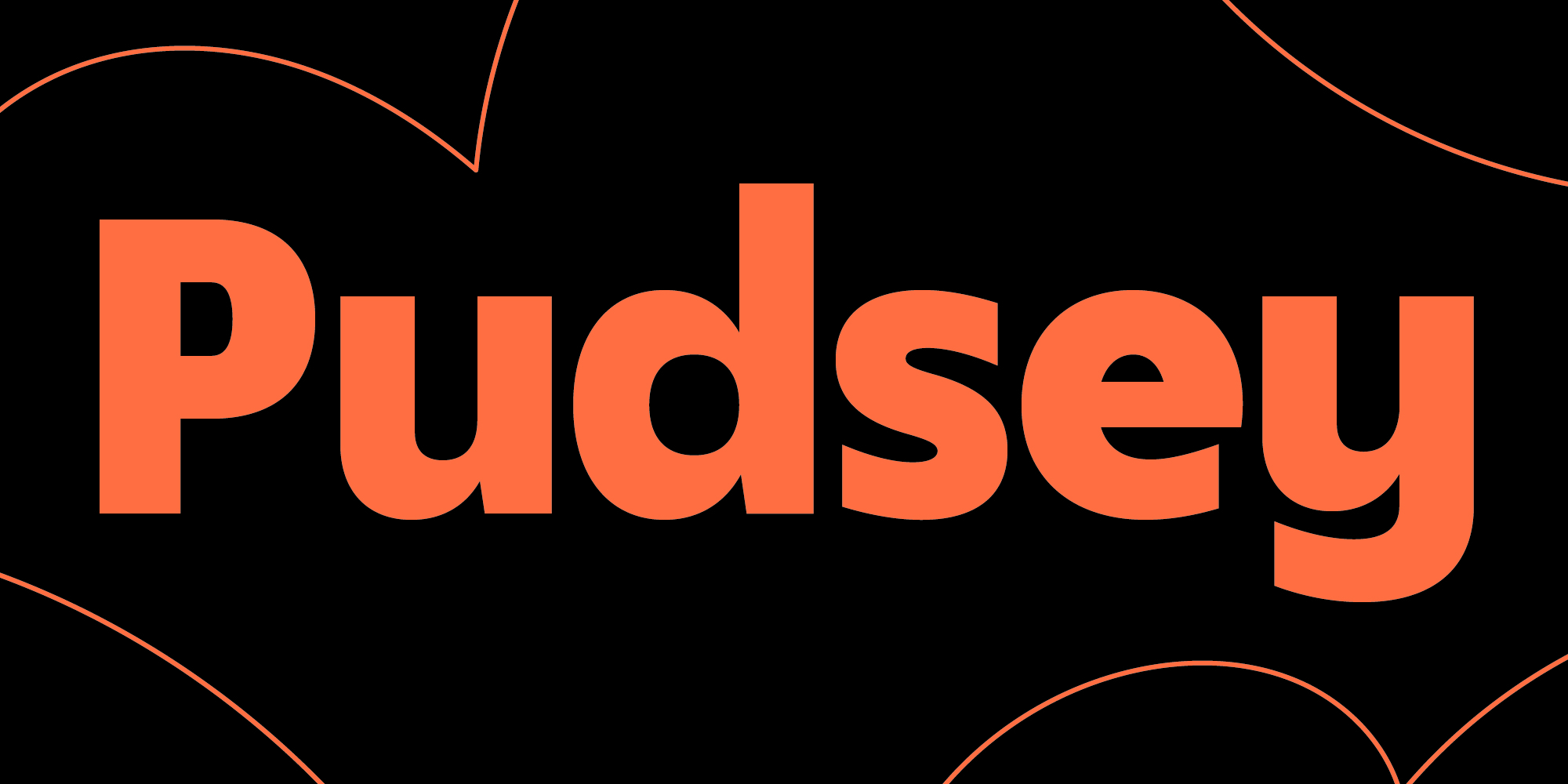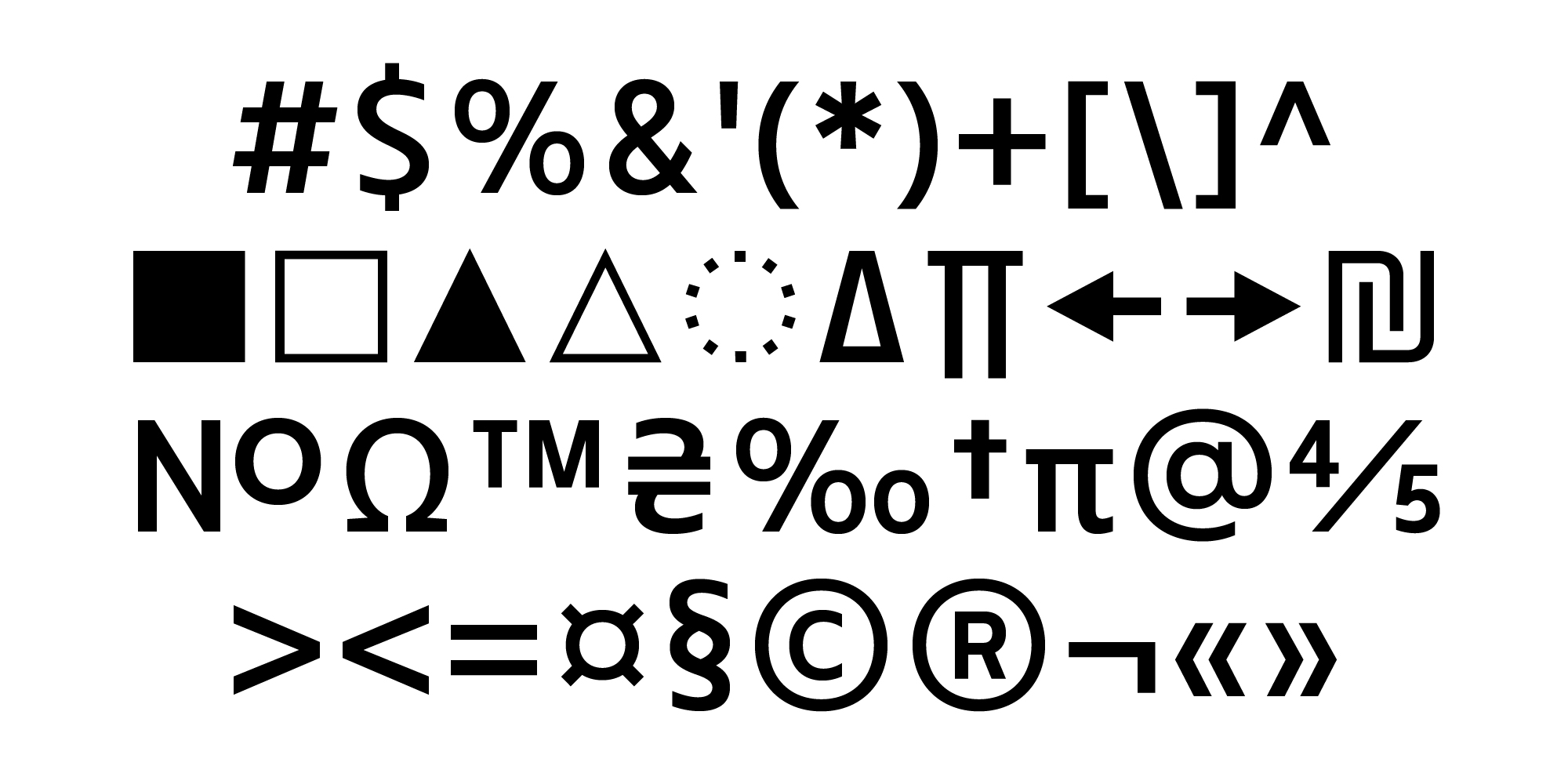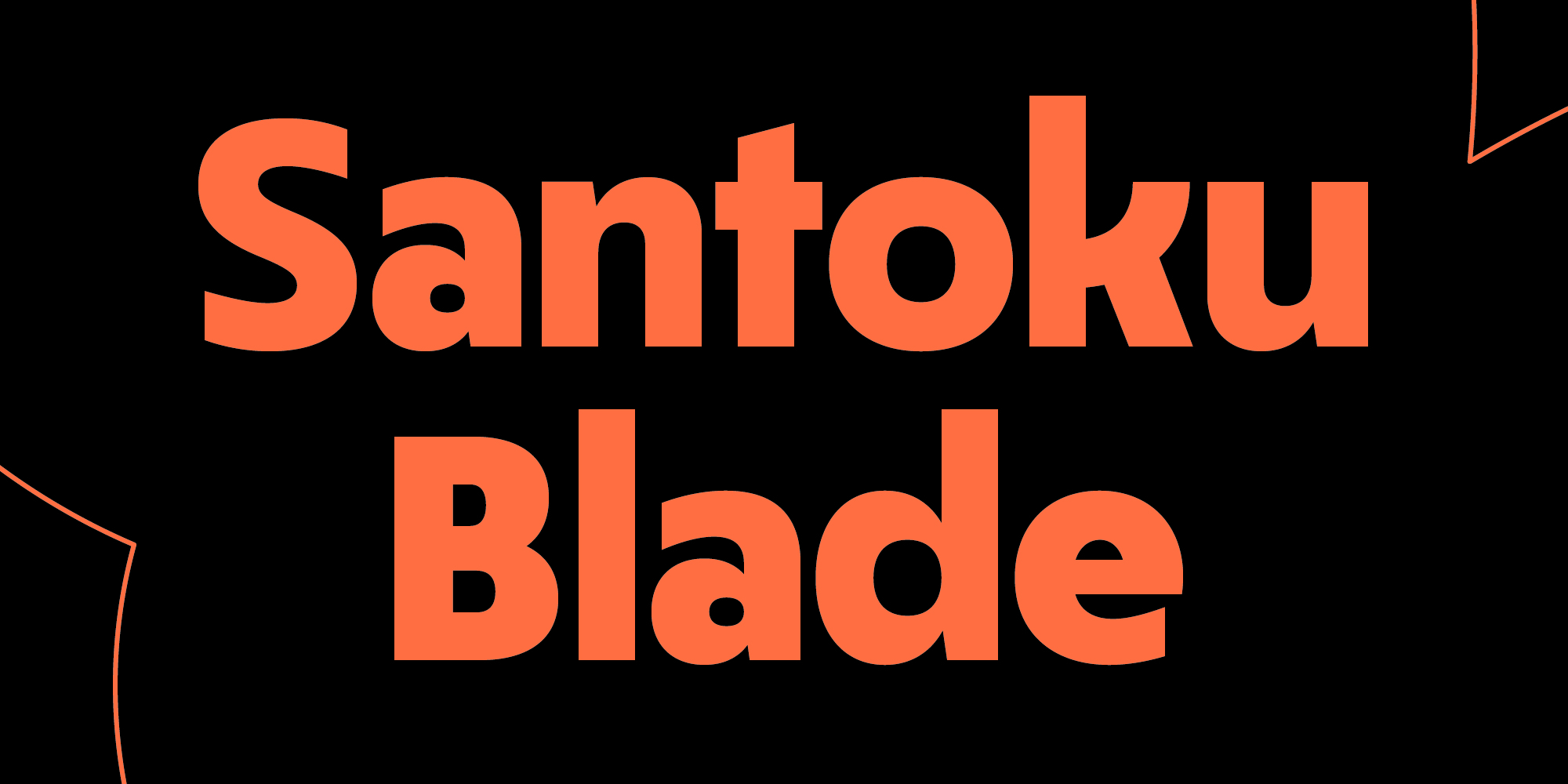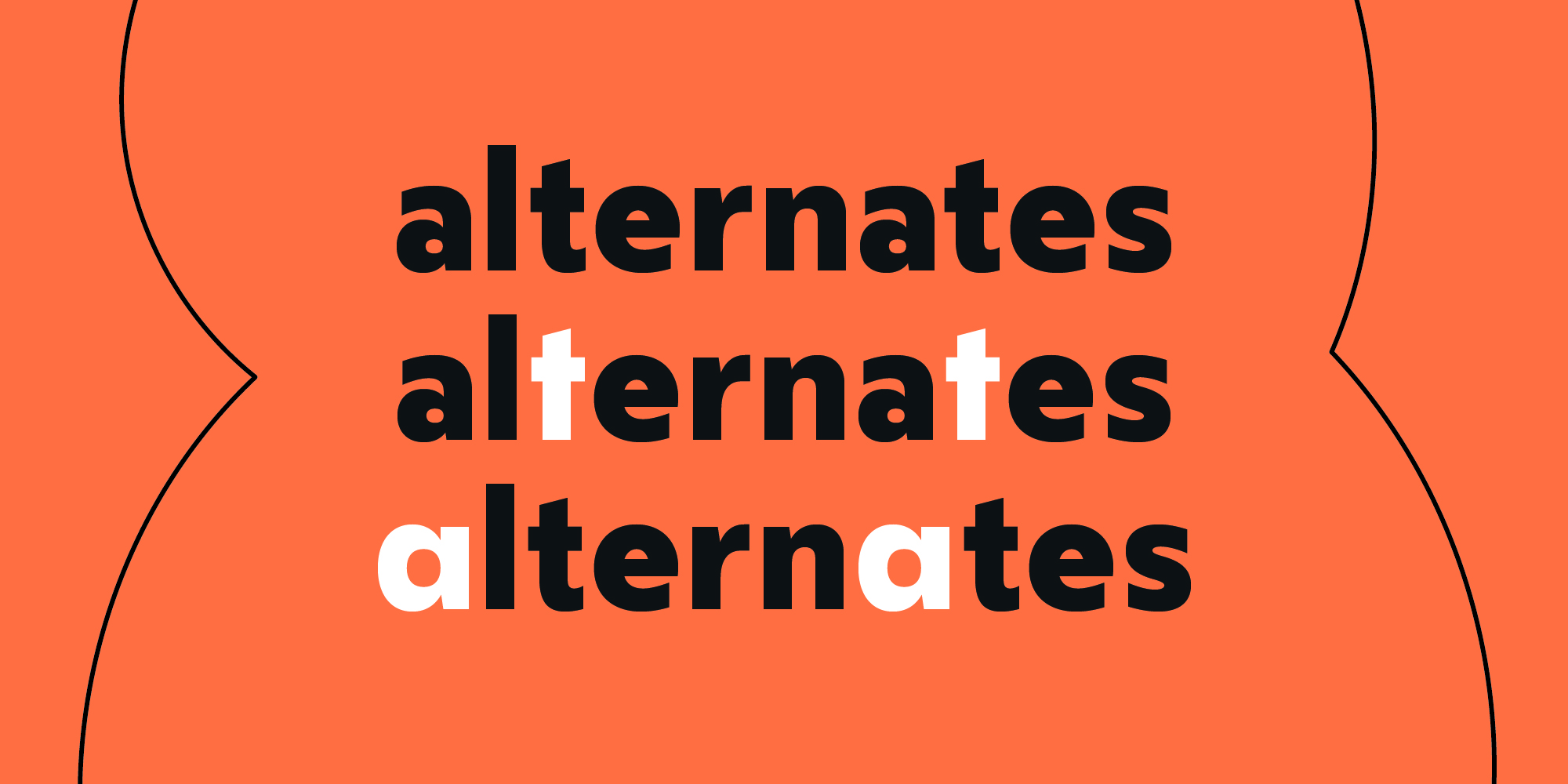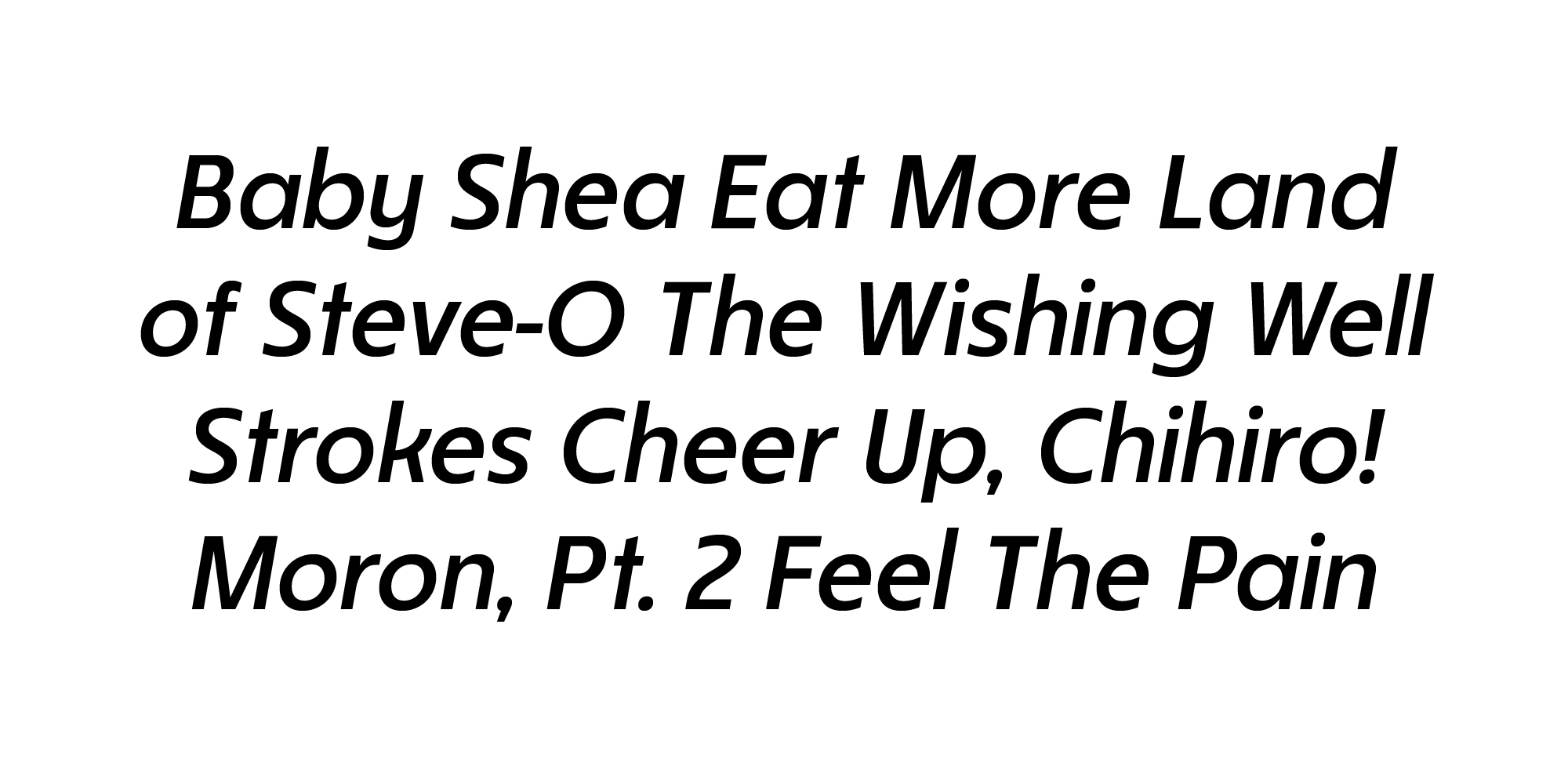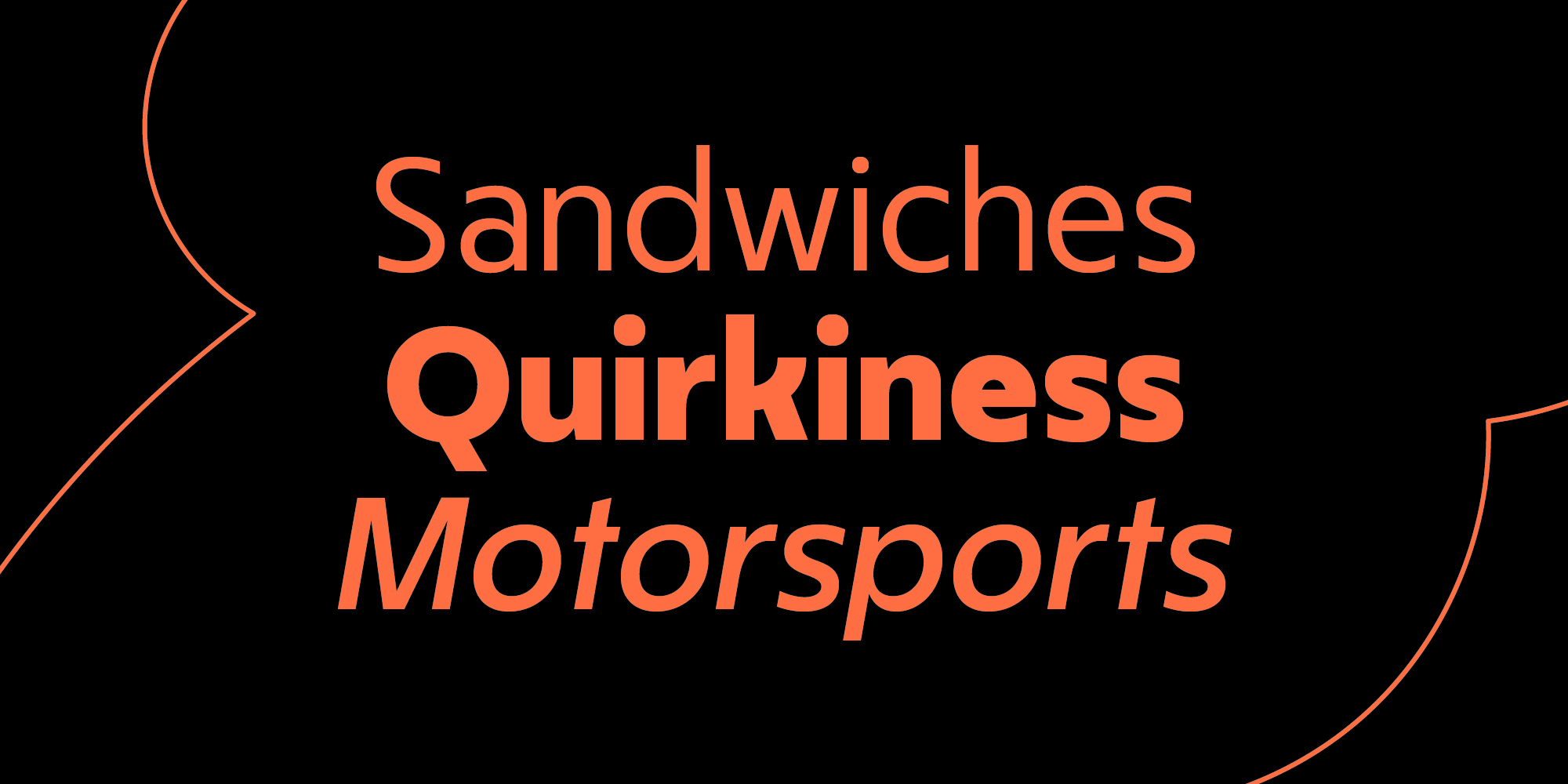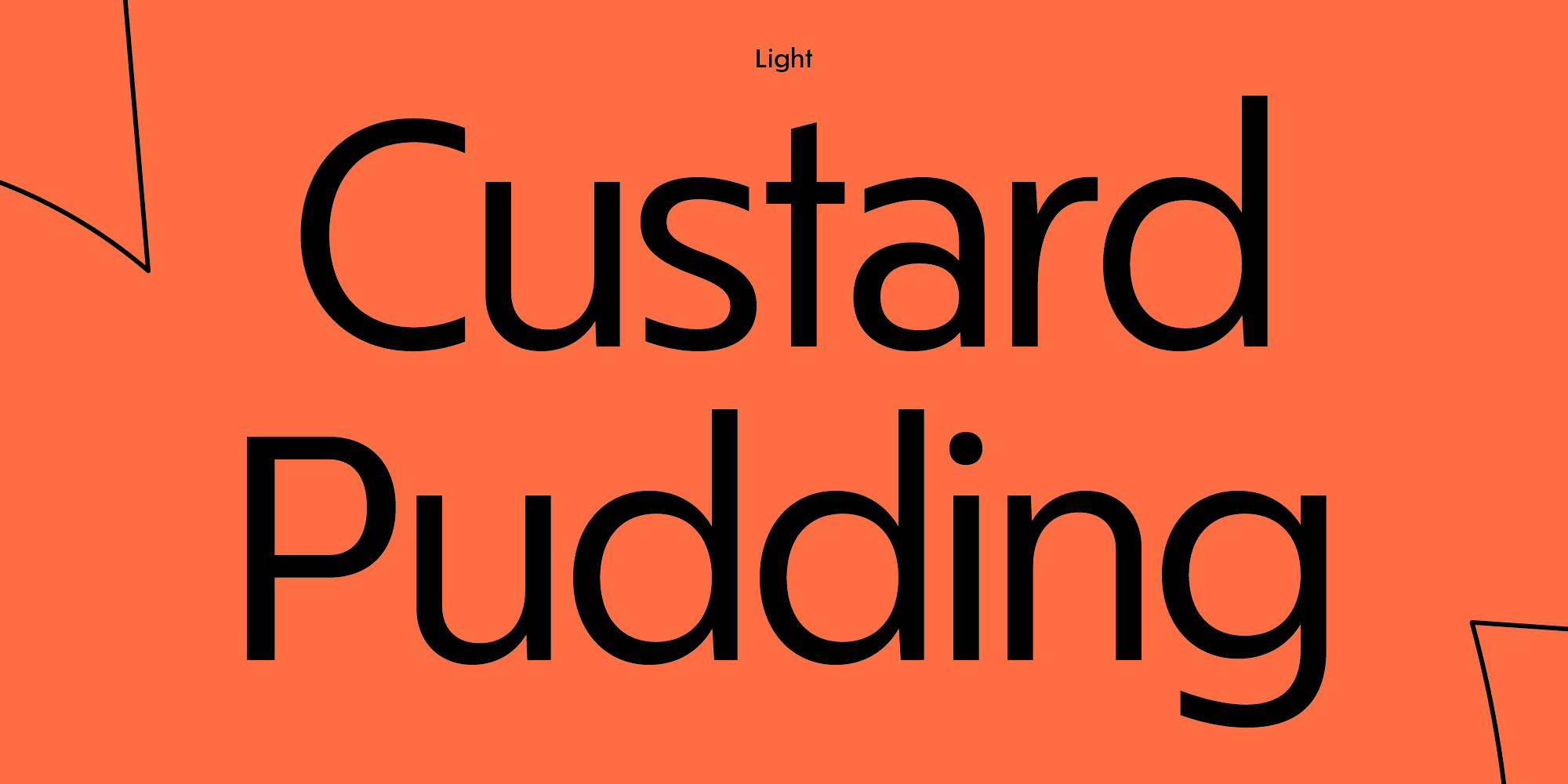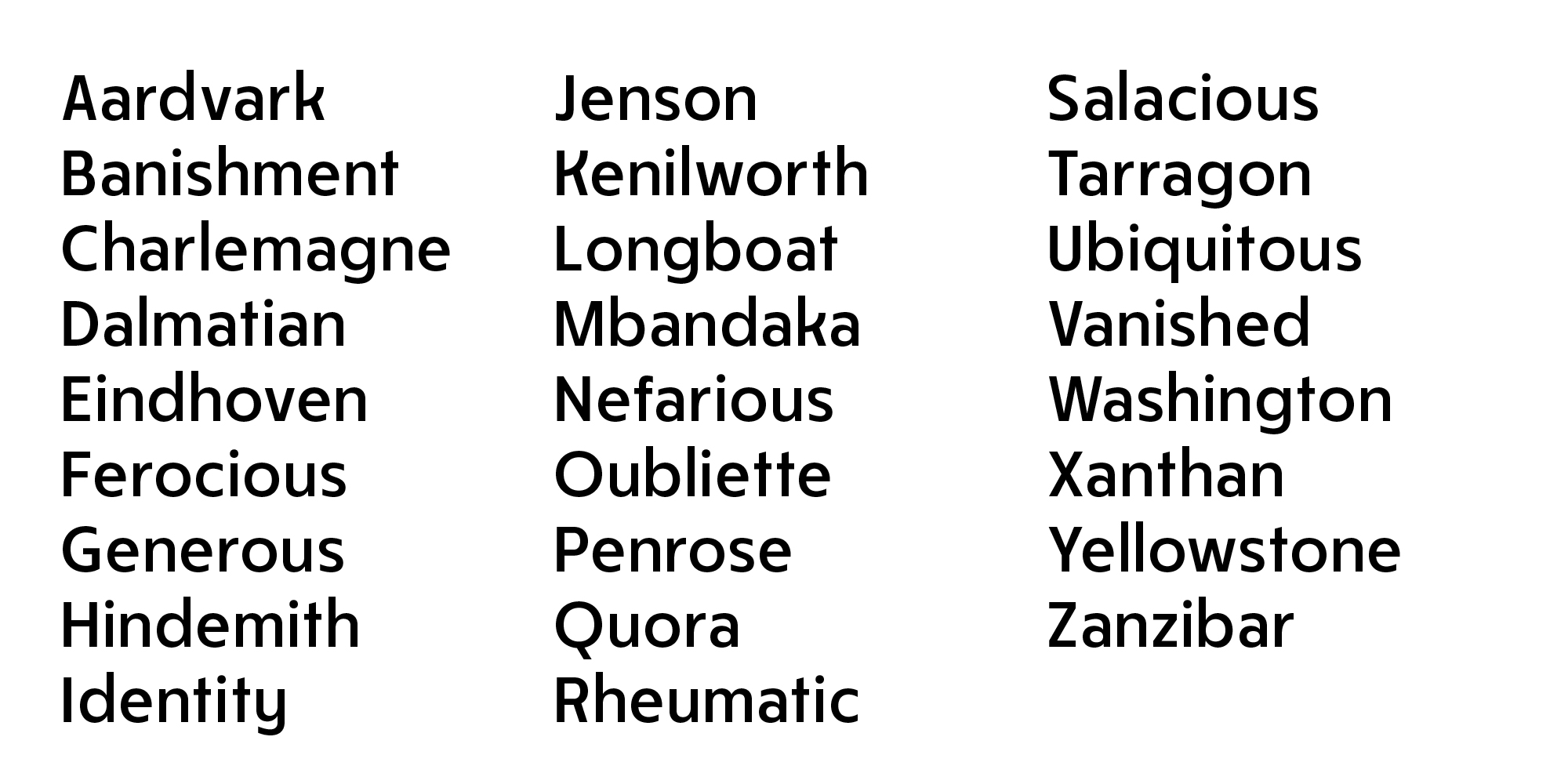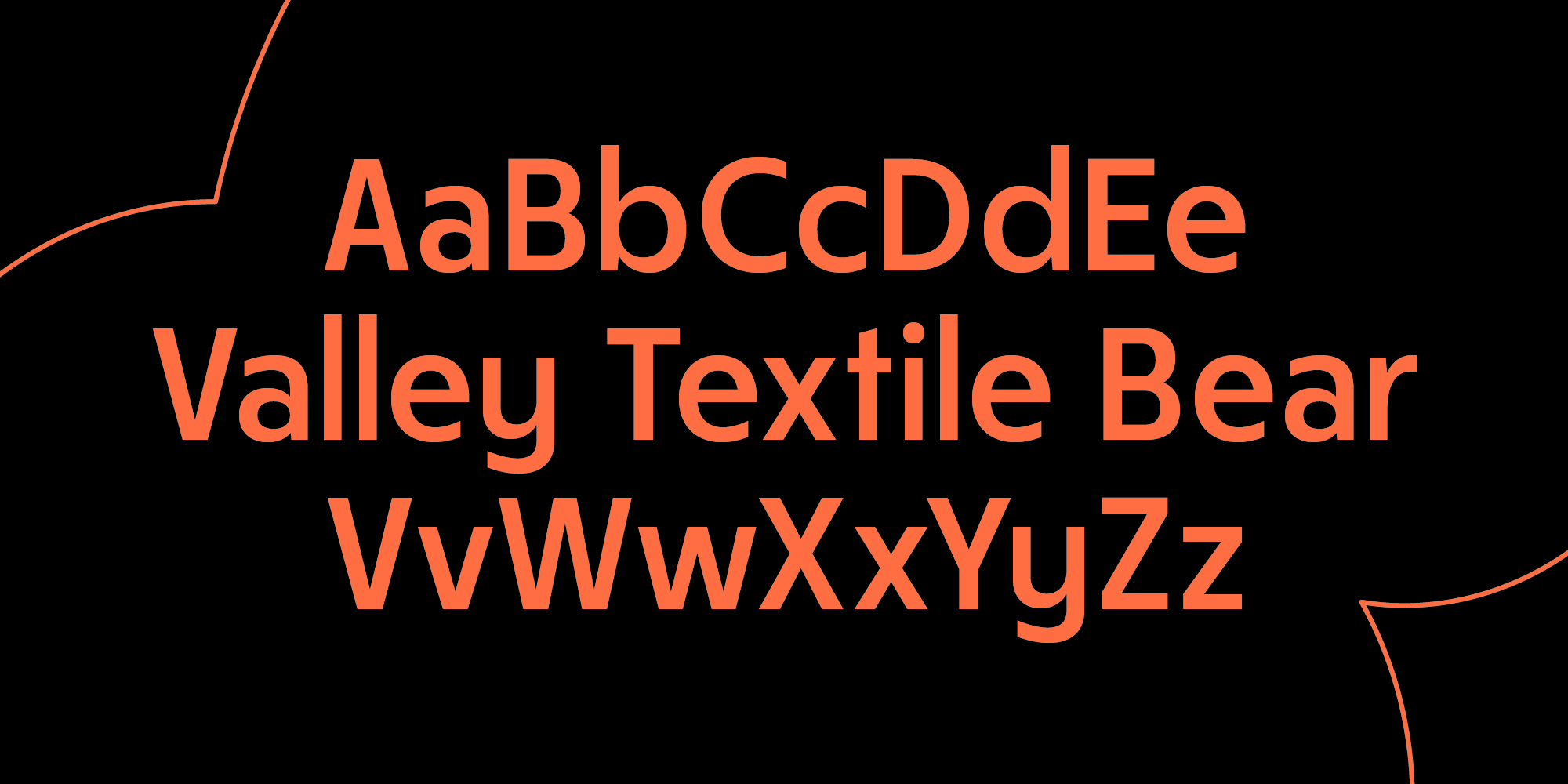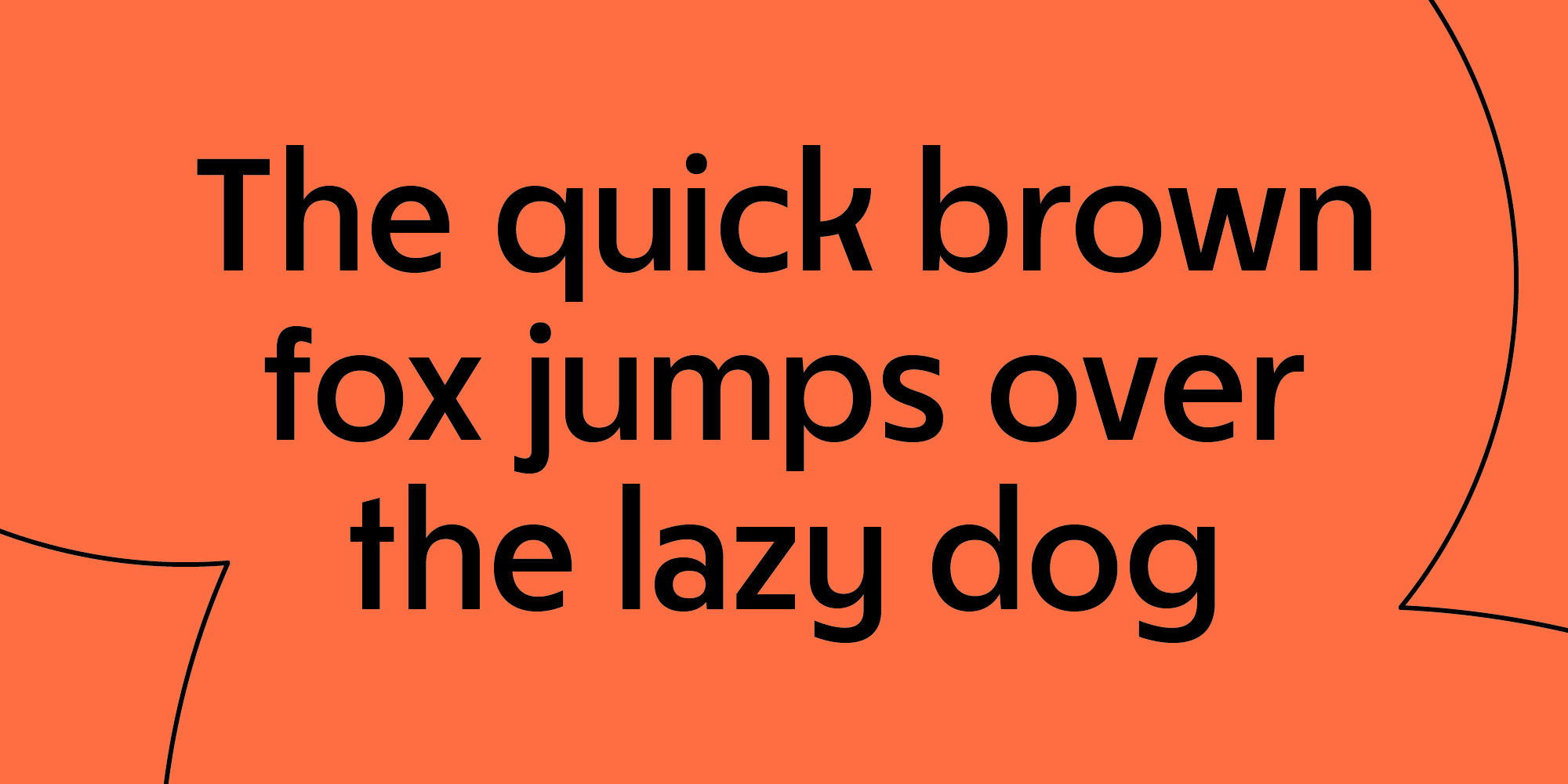
Pudsey is a warm and friendly sans-serif typeface family that draws inspiration from geometric styles prevalent in early 20th-century European typography.
Infused with gentle, humanist-inspired elements, Pudsey aims to evoke a sense of comfort and familiarity while exciting viewers with its originality. It strikes a balance between casual and professional, and to highlight this duality, the type family includes both regular and soft styles, providing a versatile range of design possibilities.
From polished and professional to more playful and casual, Pudsey’s extensive Latin S character set supports numerous Latin-based languages, with a particular focus on Western and Eastern European and South American languages. In addition to its glyph set, Pudsey’s meticulous kerning of accented character combinations makes it an excellent choice for organisations catering to a diverse and multilingual user base.
Comprising of sixteen weights across Sharp and Soft styles, including Light, Regular, Bold, ExtraBold, and corresponding italics, Pudsey offers a spectrum of design choices without overwhelming users with excessive and impractical weights.
Pudsey boasts an impressive 688 glyphs, including tabular figures, old-style figures, localised alternates, mathematical symbols, fractions, superiors and inferiors, numerators and denominators, punctuation, extended currency symbols, arrows, shapes, and an array of additional elements.